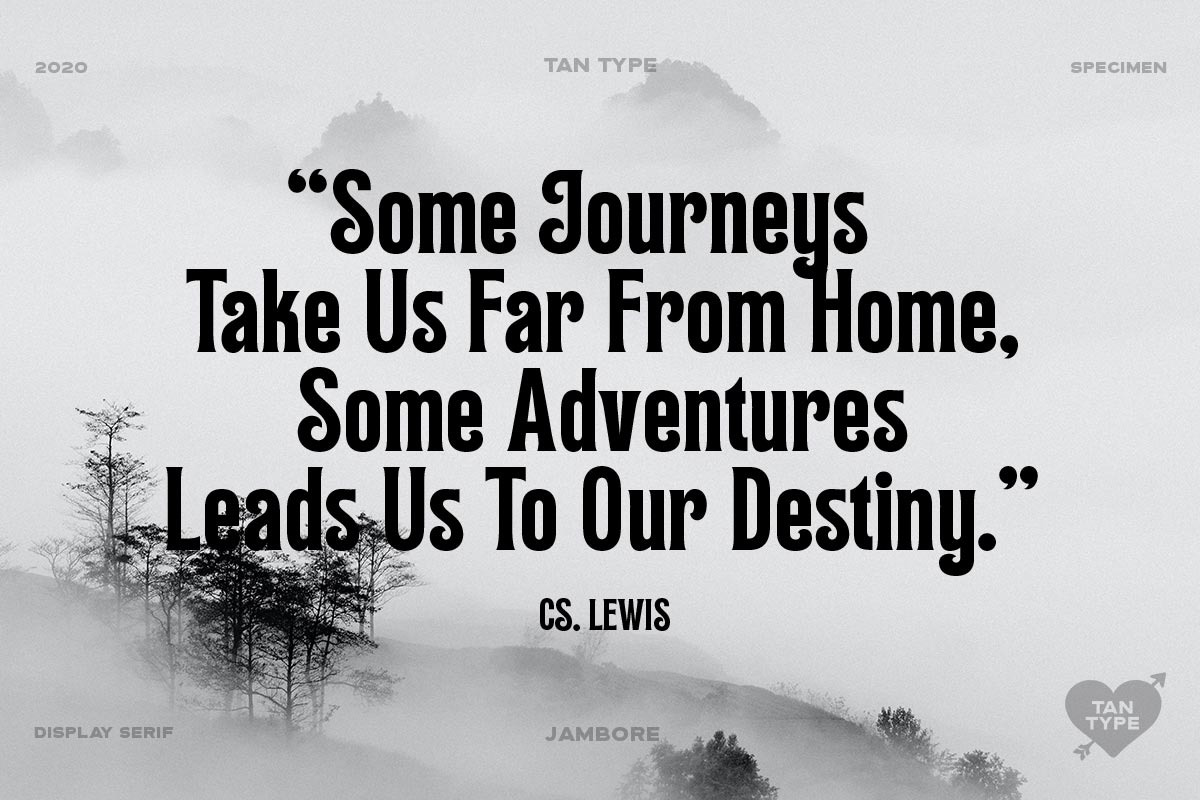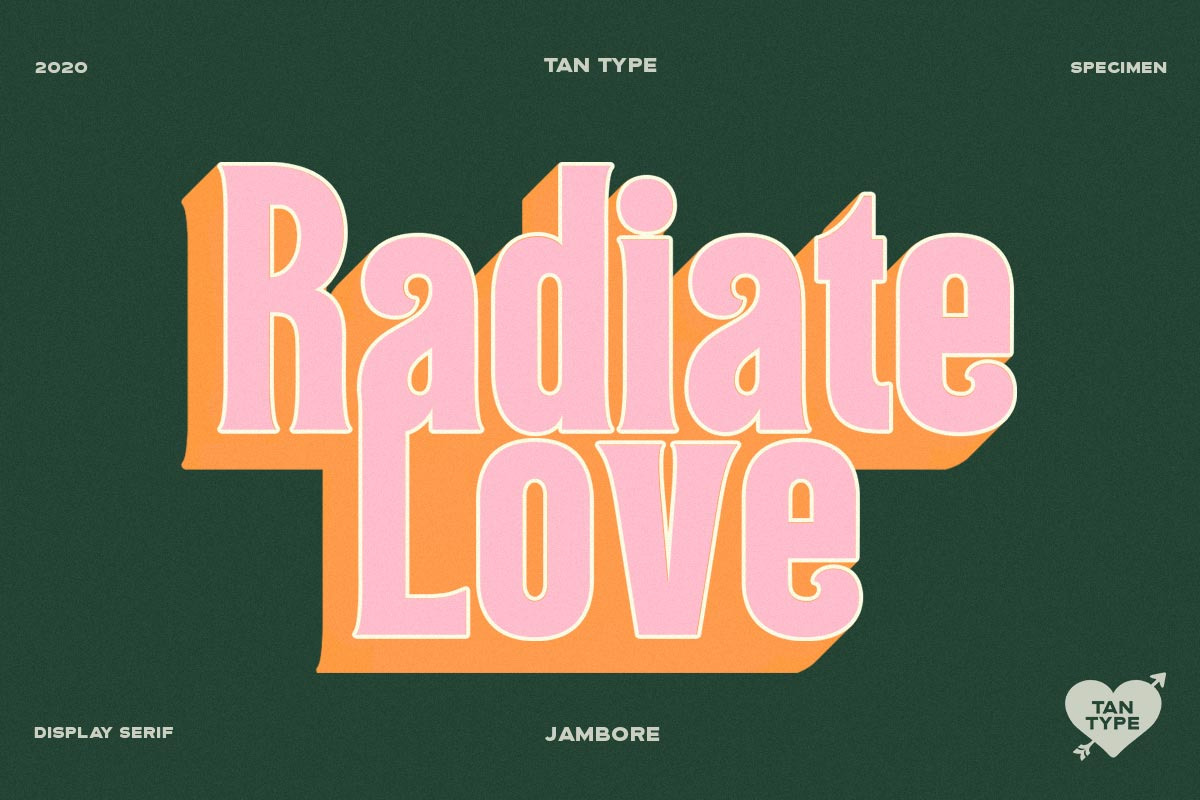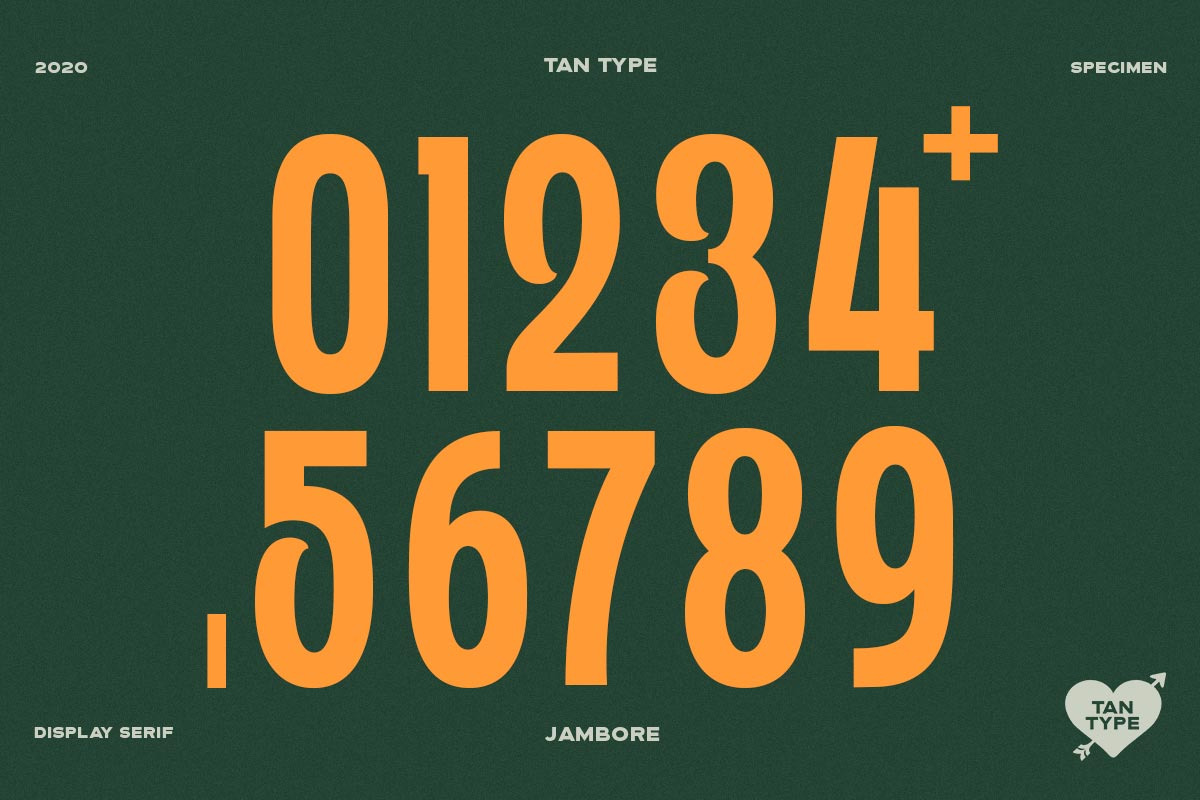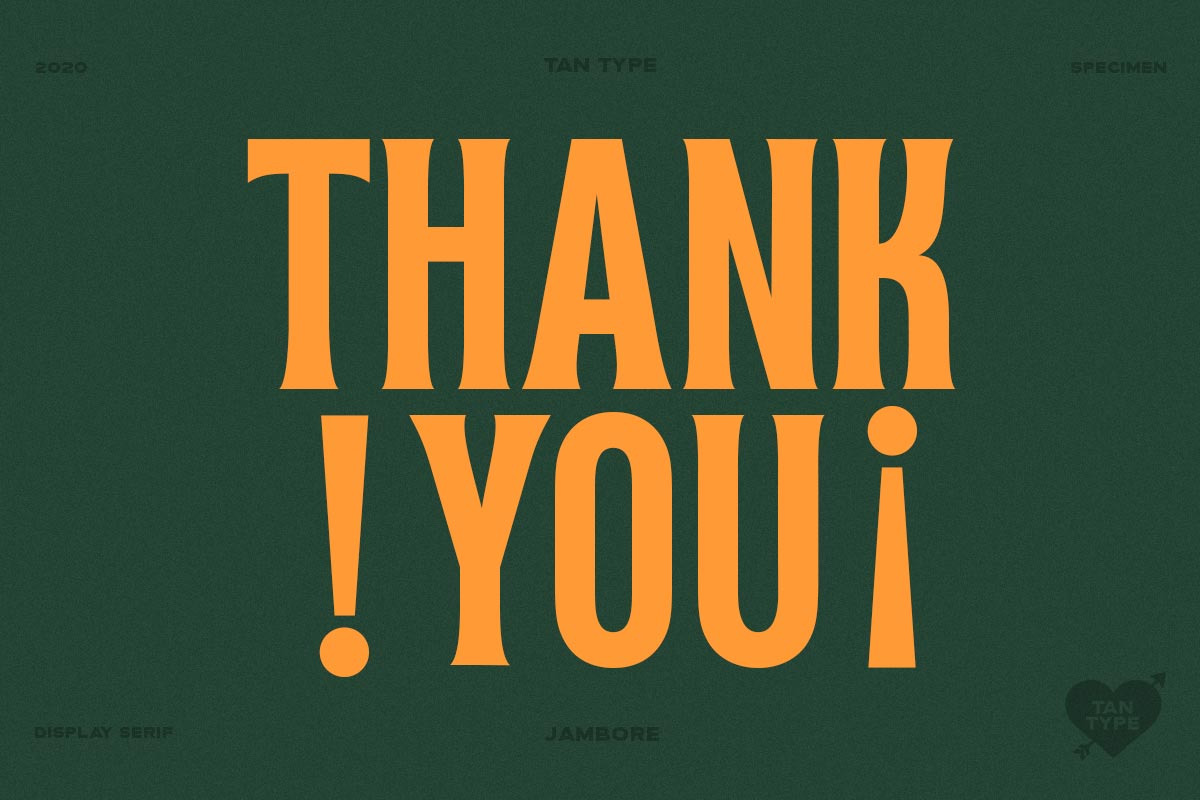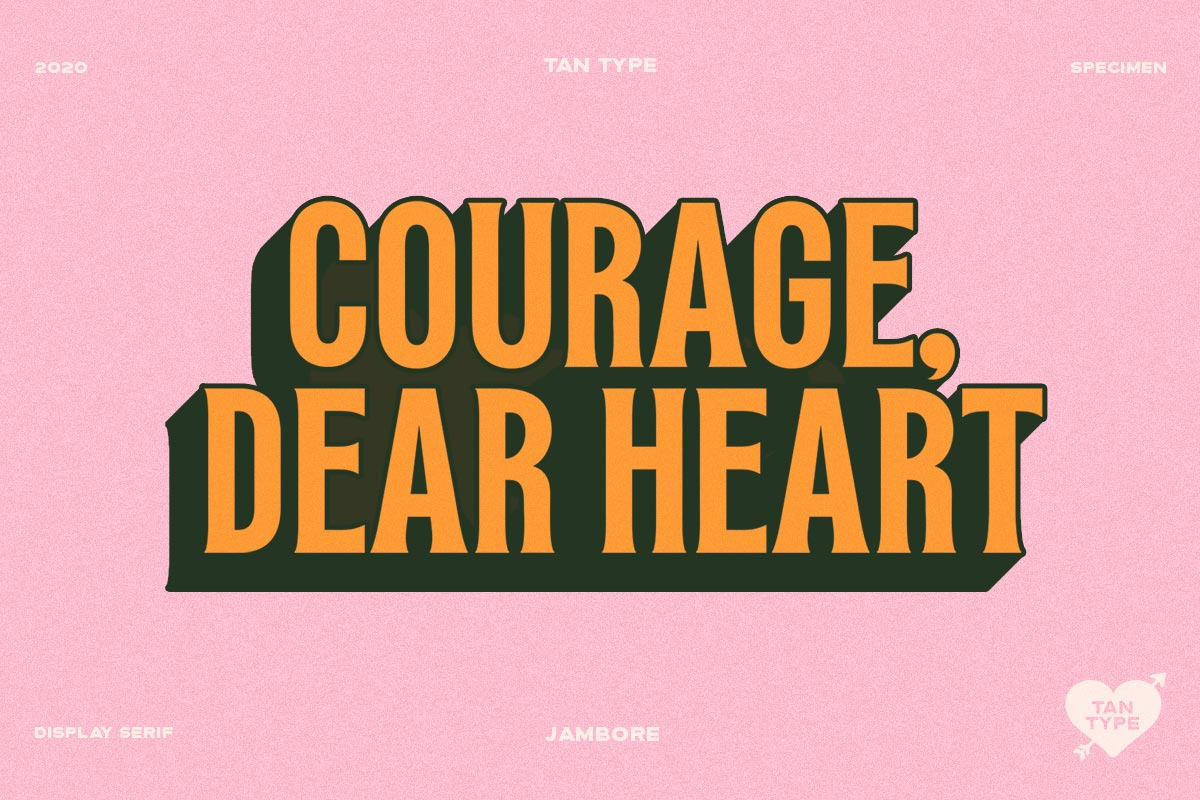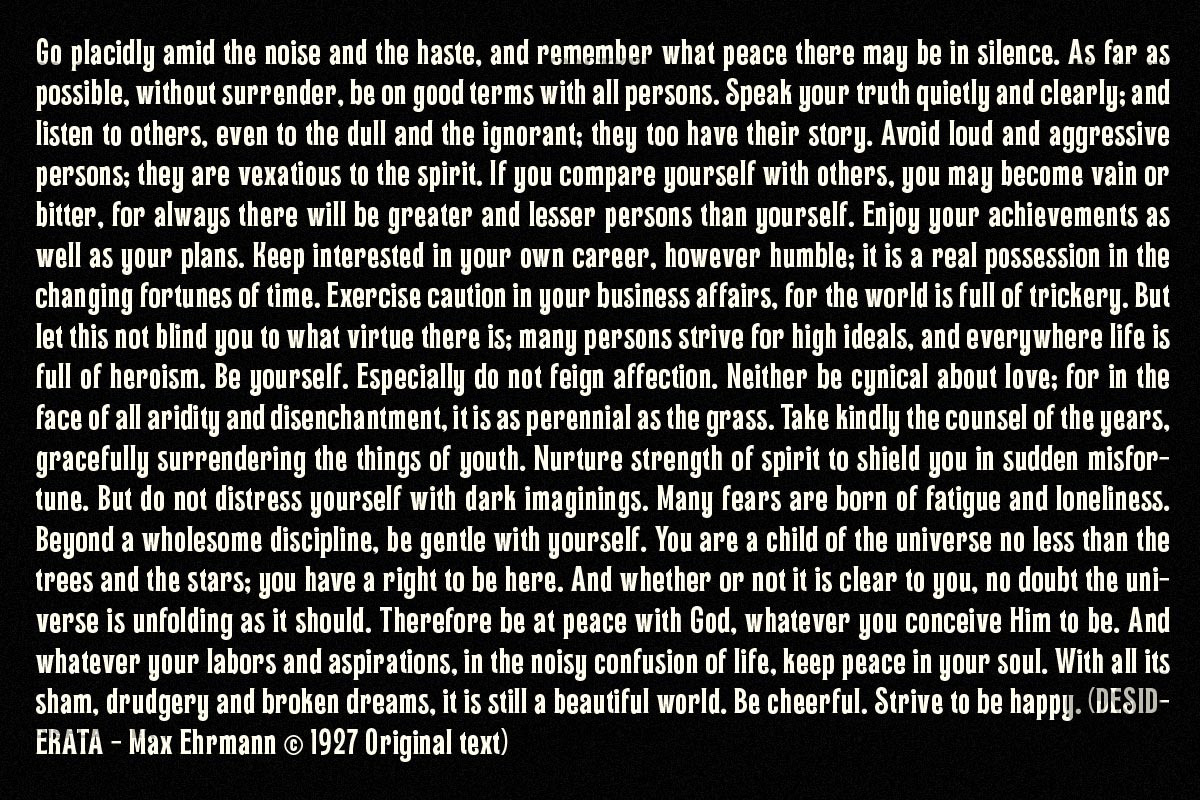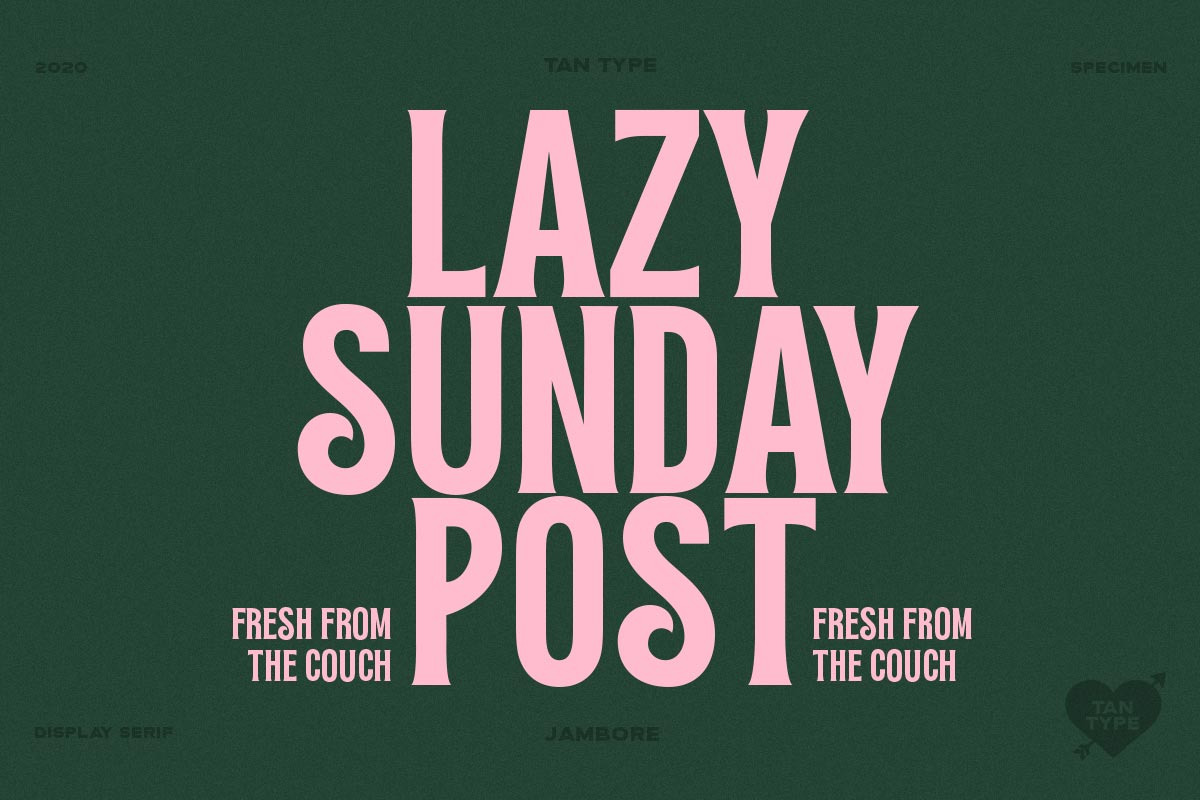
TAN - Jambore
Jambore is a bold display serif. Conventional with a flair. It has a right dose of retro vibes and perfect for headlines, branding purposes, book covers, ads, etc.
Love this font! Adds the perfect mixture of class and playfulness to projects. My only wish is that it came in different weights or had alternates (especially for Y, H and A).
I do monumental drafting always on the lookout for fonts that can be carved or sandblast in stone at various sizes, this font meets my needs, plus resemble old-style used on monuments for 100+ years. Well done and see a lot of use.